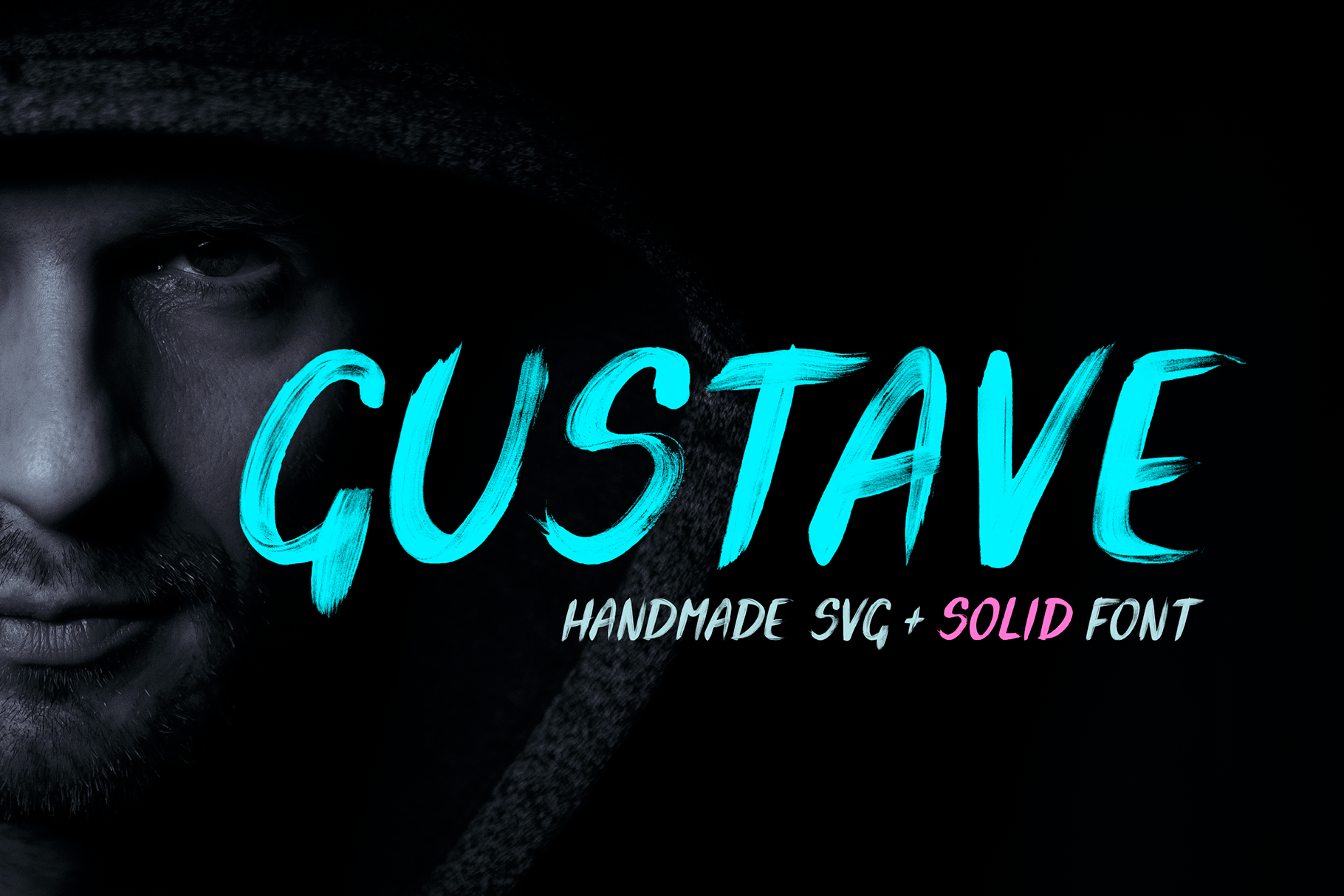
Gustave SVG Font
Gustave is our debut all-caps handmade brush font made using acrylic paint.
- A-Z uppercase letters (this is a unicase font, it only has uppercase letters)